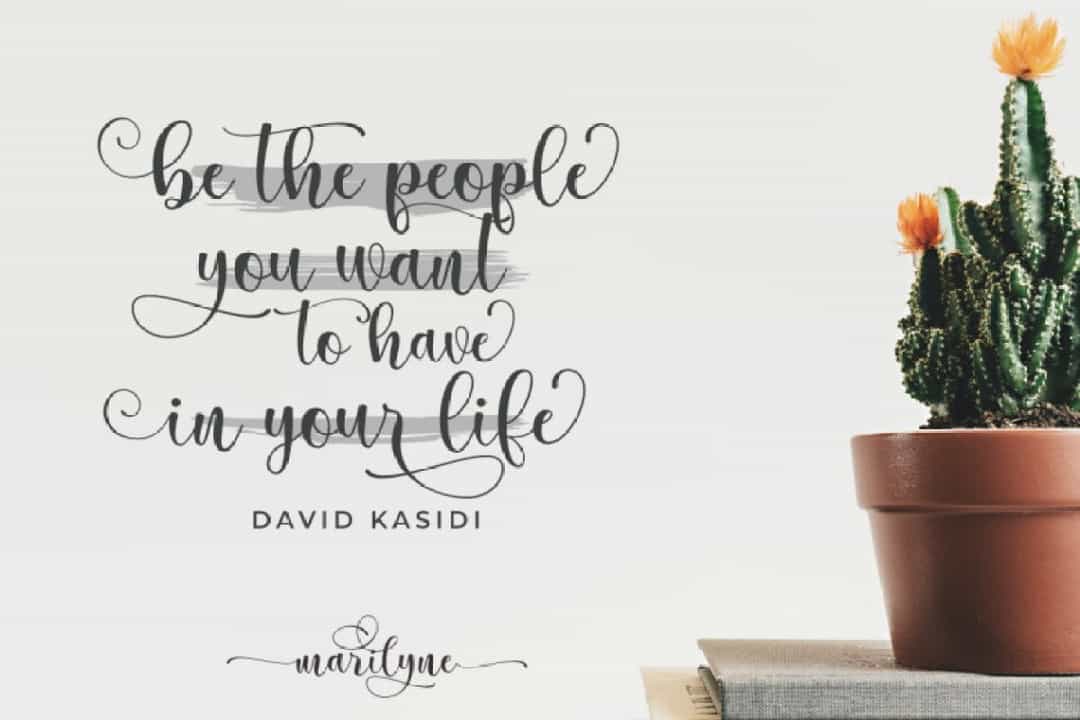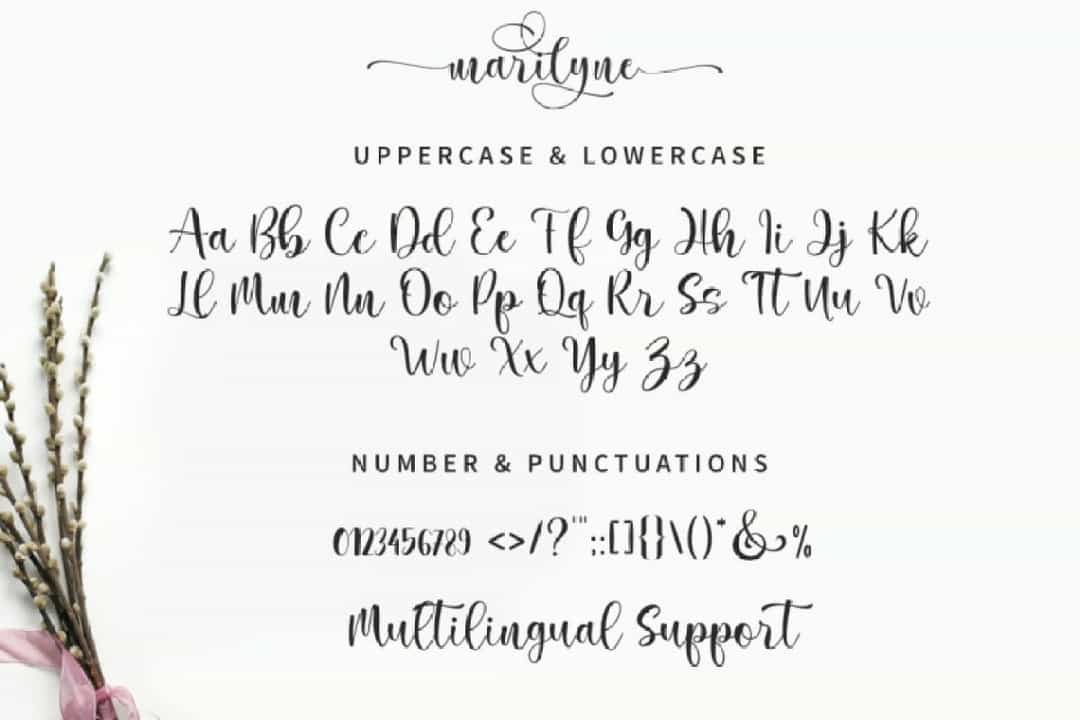
We are glad to present a new typeface of modern calligraphy – Marilyne. This font is suitable for the people who are searching for a classic touch in their designs and with perfect results and elegance. Marilyne Font is a very beautiful and intriguing script indeed.